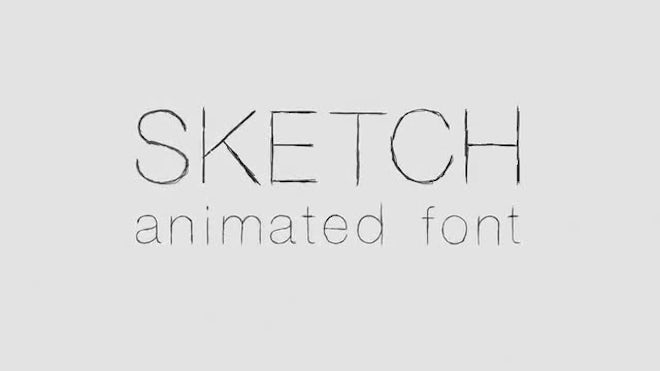
The Sketch Animated Font After Effects template features a hand-drawn and animated font. This template is perfect for adding a handcrafted look to your next project. It includes capital letters, lowercase letters, numbers, and punctuation marks. Try it today!